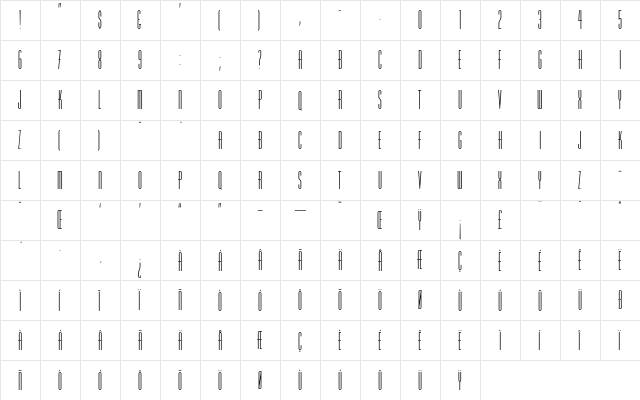
Chrysler-Ultra-Compressed Regular
Design Context for Chrysler-Ultra-Compressed Typeface
Chrysler-Ultra-Compressed offers clean, dependable letterforms without strong stylistic allegiance, making it a practical choice for designers who need flexibility.